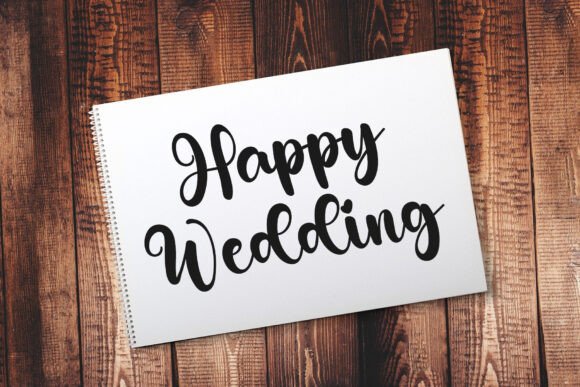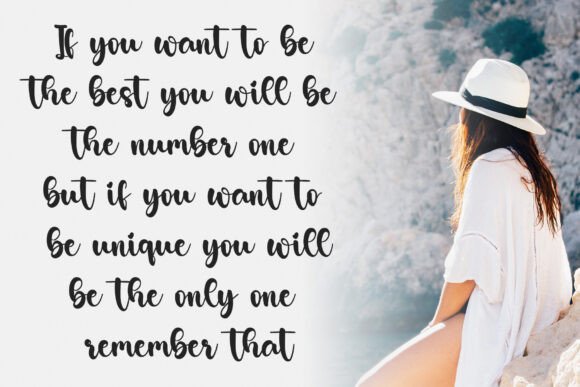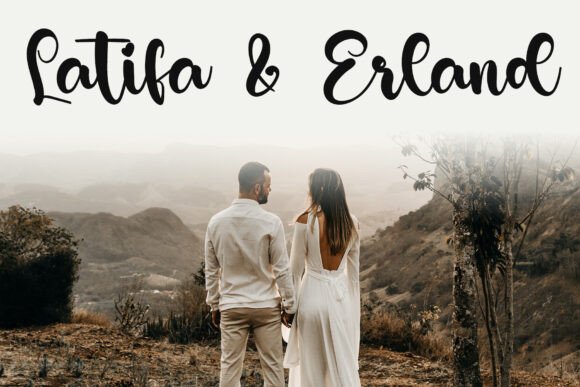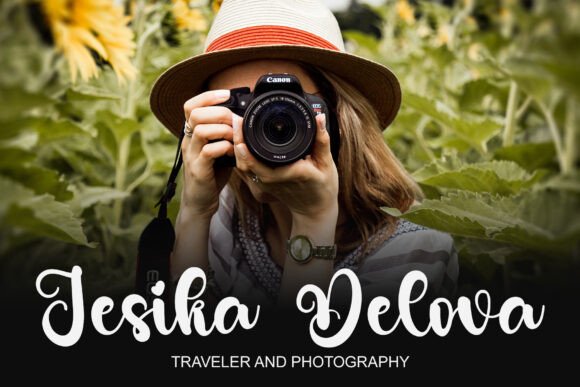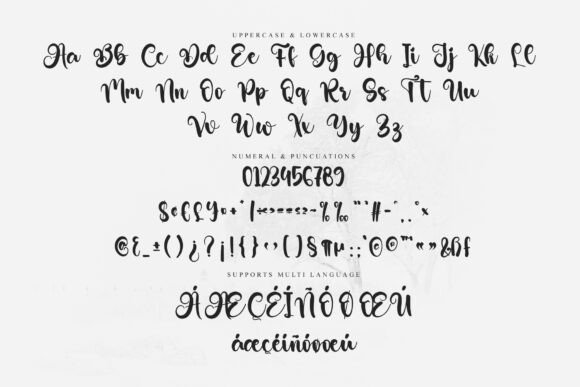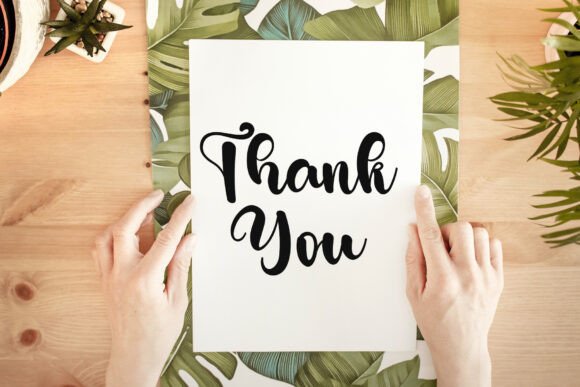
Discover the Elegance of Better Autography Font
Have you ever been captivated by the charm of a handwritten note or a beautifully crafted logo? The way a script font can evoke emotions and add a personal touch to a design is truly magical. As designers, we often find ourselves searching for the perfect font to elevate our projects and make them truly special. And that’s where Better Autography Font comes in – a stunning, elegant script font that combines fluid strokes with a touch of sophistication.
Whether you’re designing a wedding invitation, a logo for a luxury brand, or a packaging for a high-end product, Better Autography Font is the perfect choice. Its versatility and elegance make it an ideal addition to any creative project, and its beauty is sure to leave a lasting impression on your audience. With Better Autography Font, you can add a personal and refined touch to your designs, making them truly unforgettable.
Better Autography Font Key Features
- Font Family: Better Autography Font offers a range of 8 unique font styles, each with its own distinct characteristics and flair.
- Unique Characteristics: The Better Autography Font features a unique blend of modern and vintage elements, making it perfect for creating a distinctive and eye-catching design.
Better Autography Font Review
Overall, I’m impressed with the Better Autography Font. It’s a beautiful script font that’s perfect for creating handwritten or signature-like text. Here are some things that work well:
- ✨ Unique and stylish design: The font has a distinctive, hand-written feel that’s perfect for creative projects.
- ✨ Great for signatures: The font is specifically designed for signatures, making it ideal for business cards, letterheads, and other documents.
- ⚠️ Limited character set: The font only includes uppercase and lowercase letters, as well as a few special characters. This may not be suitable for projects that require a full range of characters.
- ⚠️ May not be suitable for small text: The font is best used for larger text, as the lines and curves may become difficult to read at smaller sizes.
Overall, I think the Better Autography Font is a great addition to any designer’s toolkit. While it may have some limitations, its unique design and versatility make it a valuable asset for creative projects.
Better Autography Font is ideal for use in wedding invitations, birthday cards, and other personal greeting cards.
It’s also great for use in social media graphics and blog posts to add a touch of elegance and sophistication.
Q: Does Better Autography Font support ligatures?
Yes, Better Autography Font supports ligatures, which are special combinations of letters that are designed to flow together more smoothly. Ligatures can be enabled or disabled in your design software, depending on your specific needs.